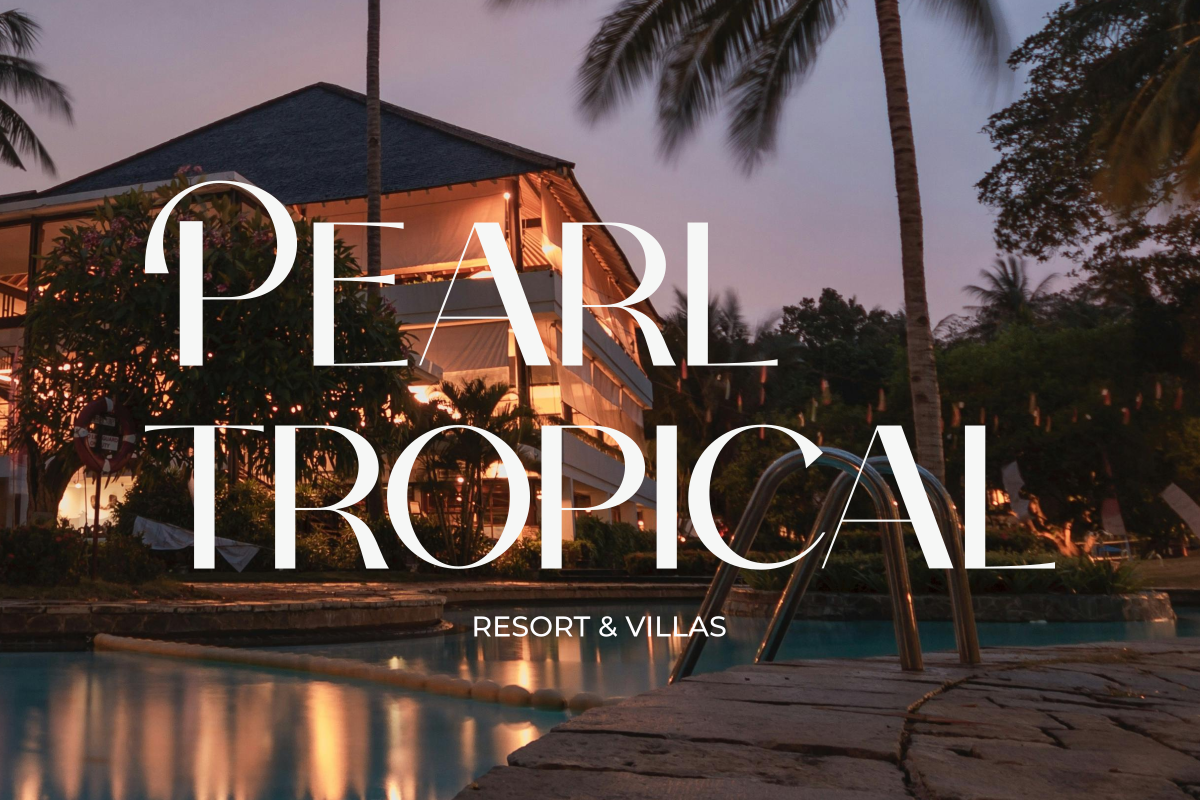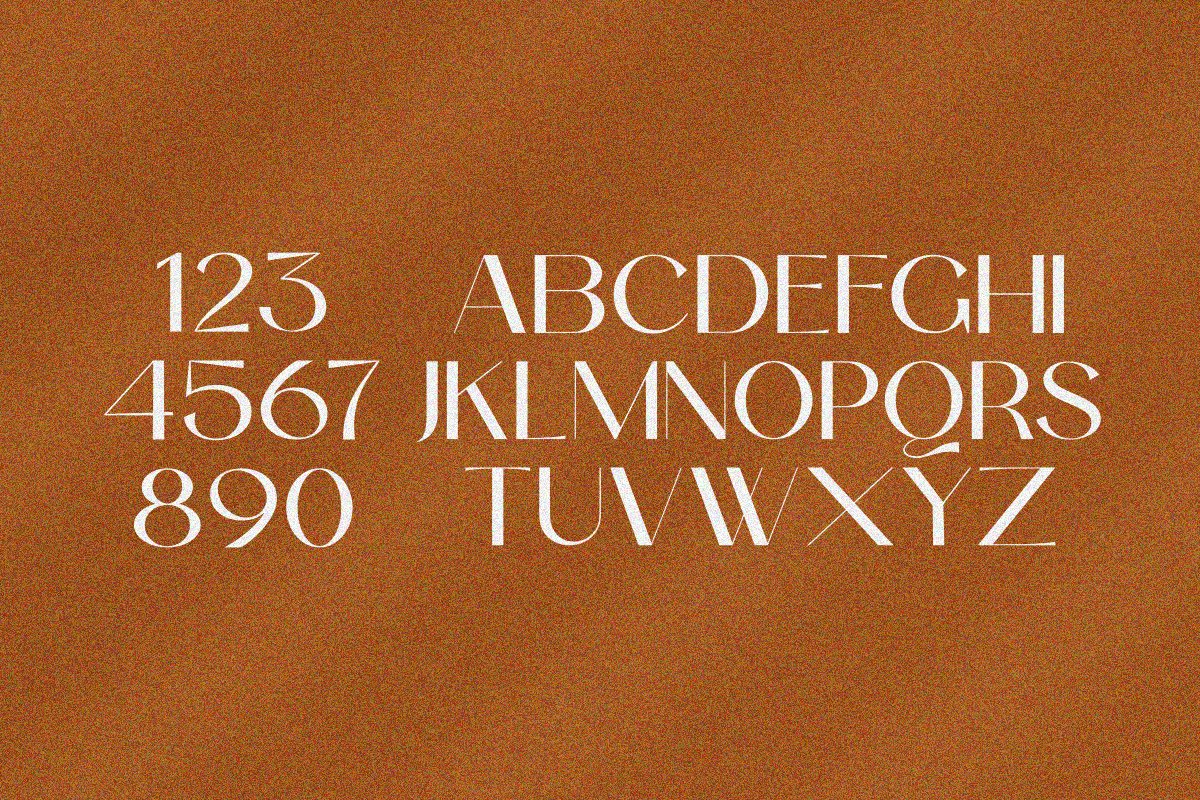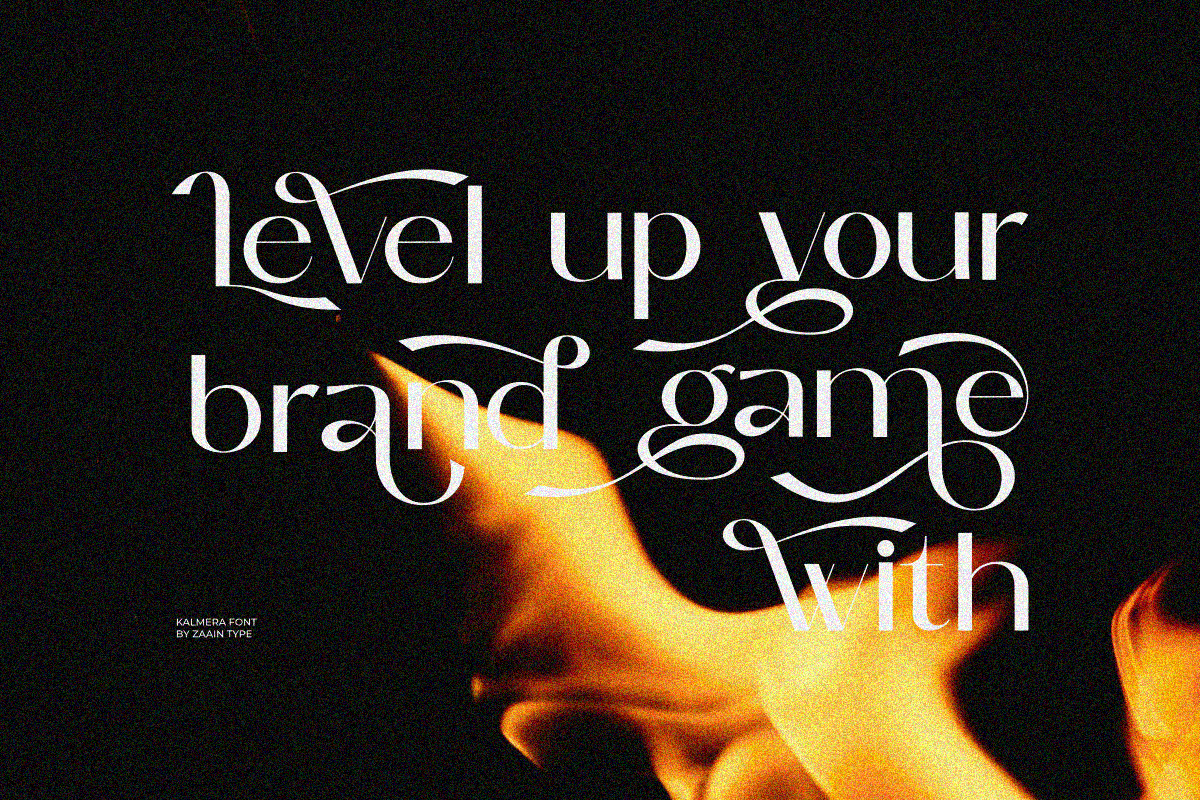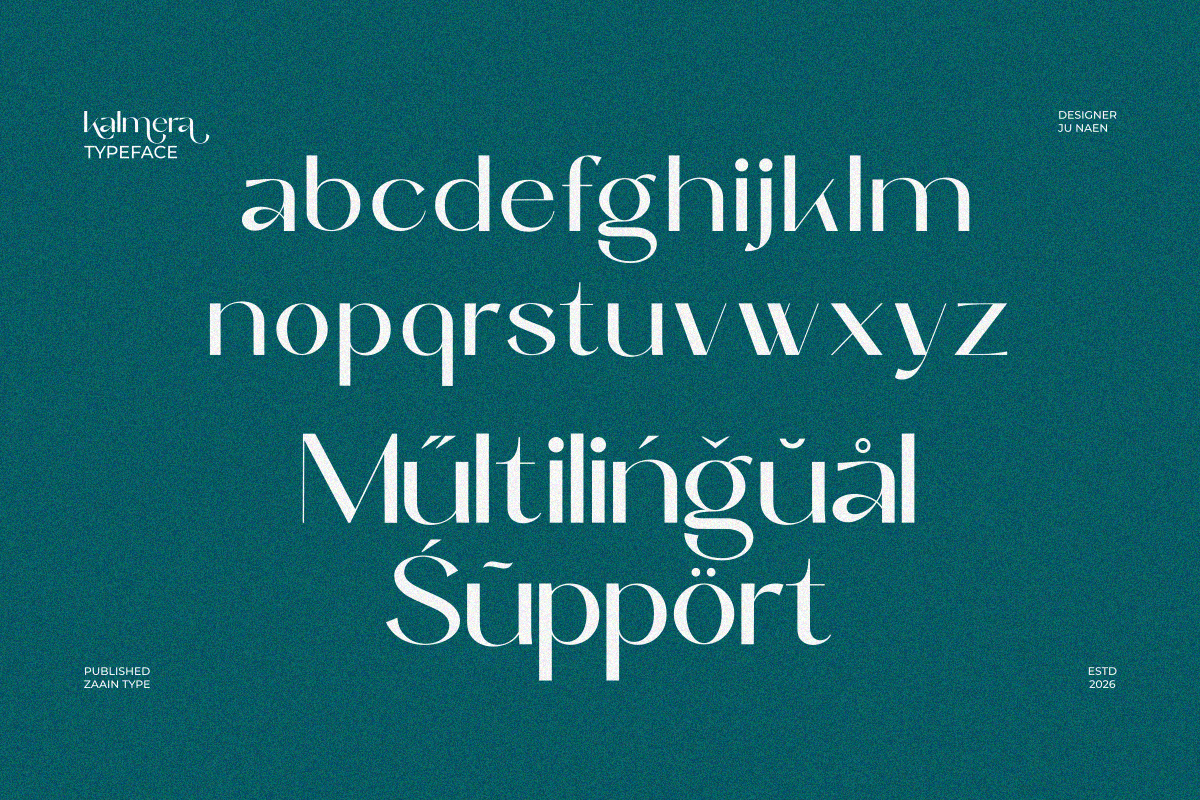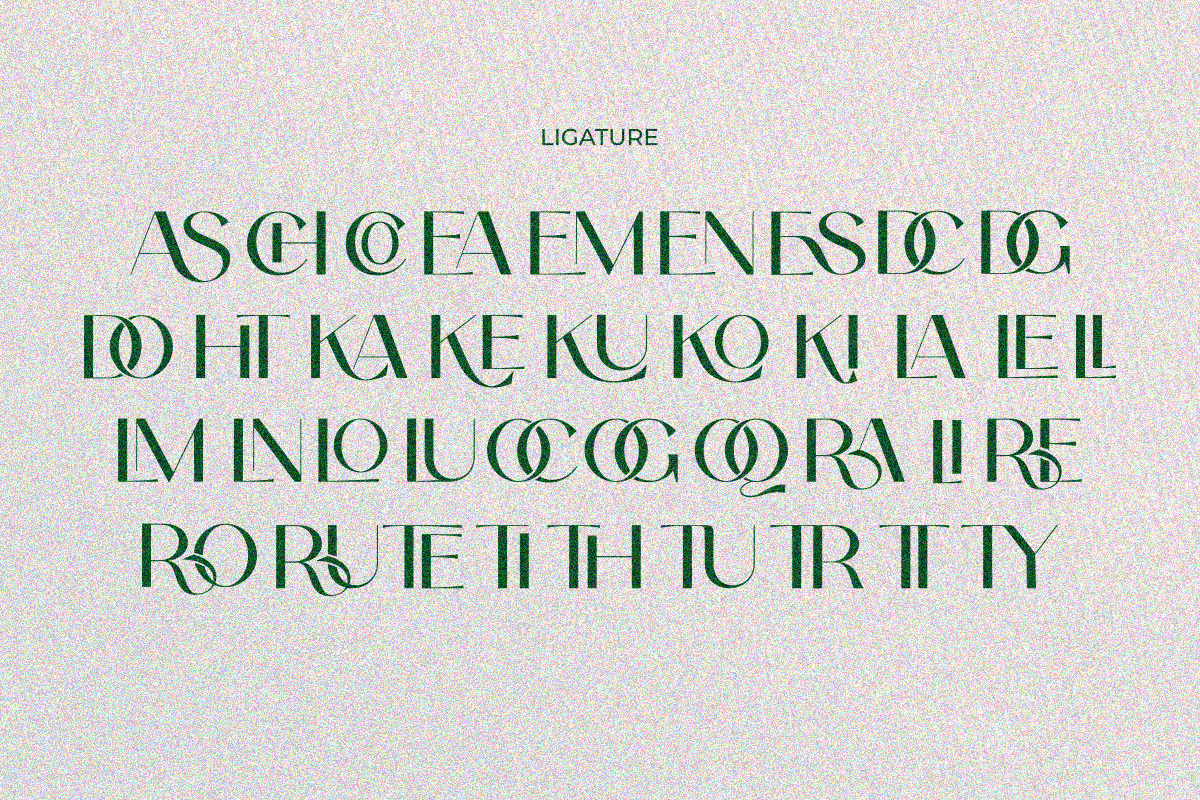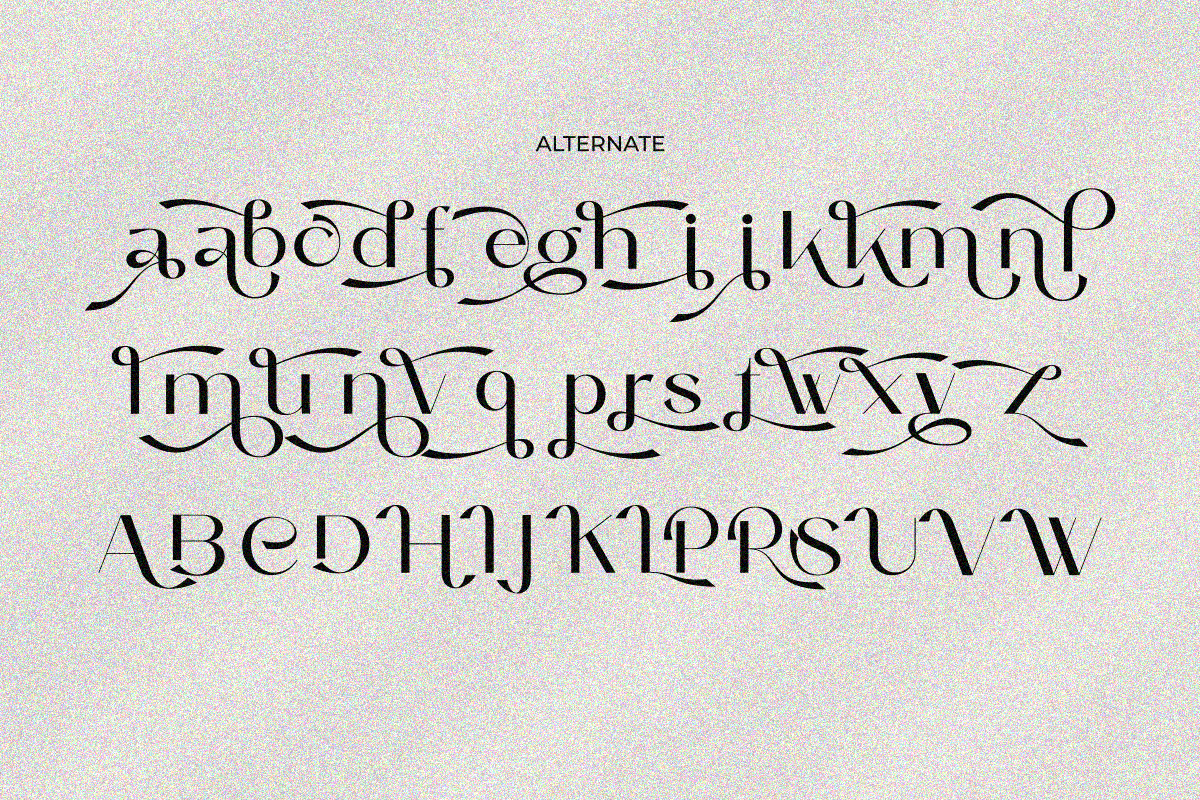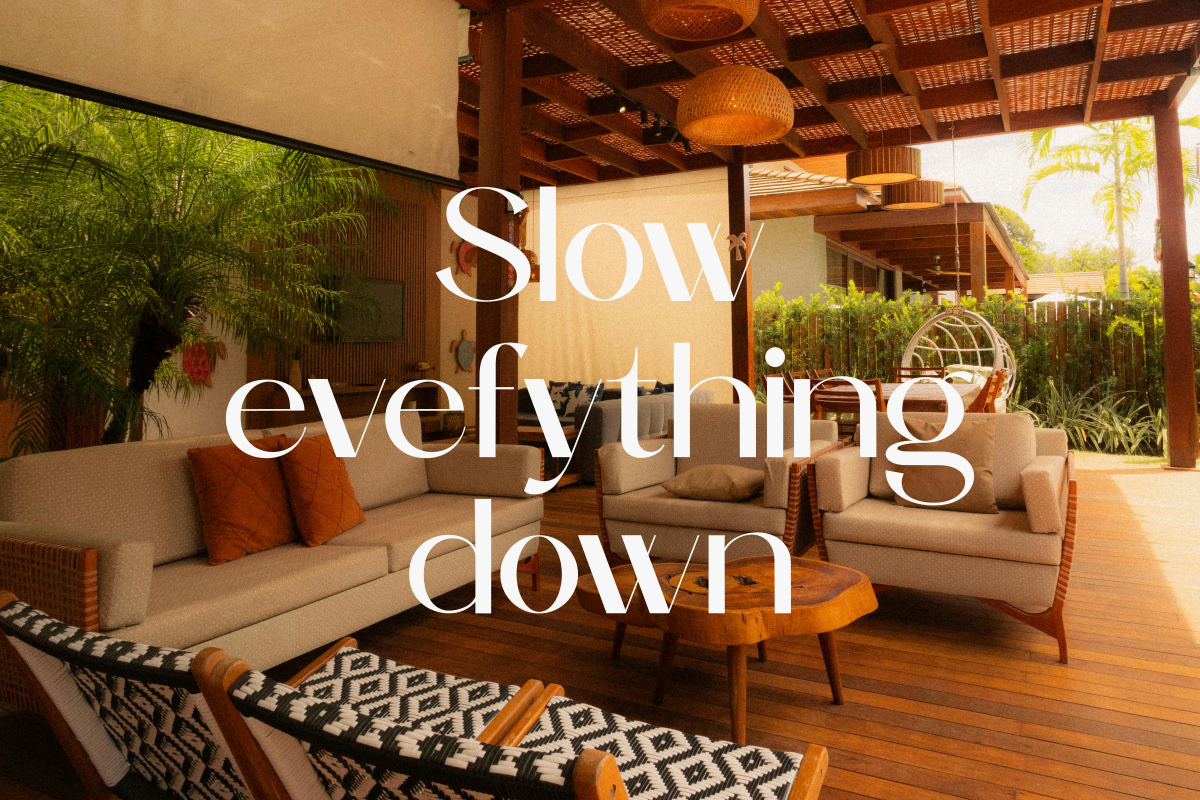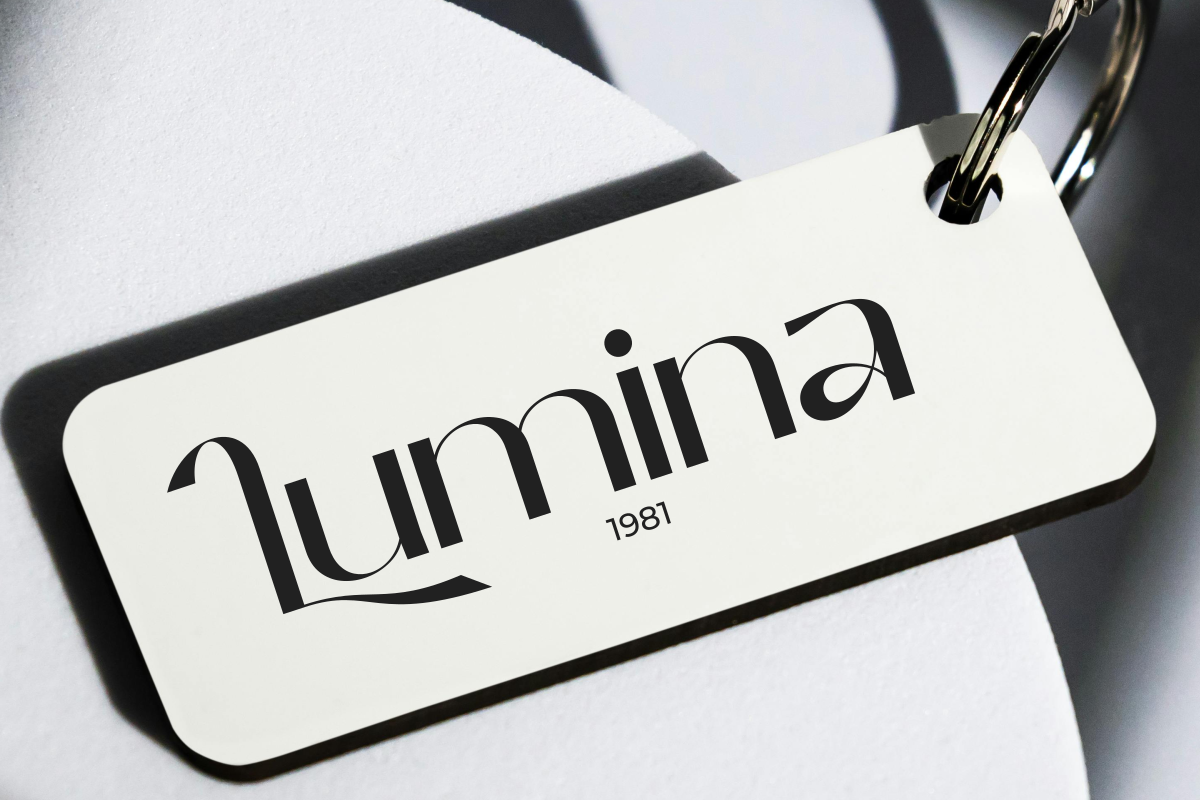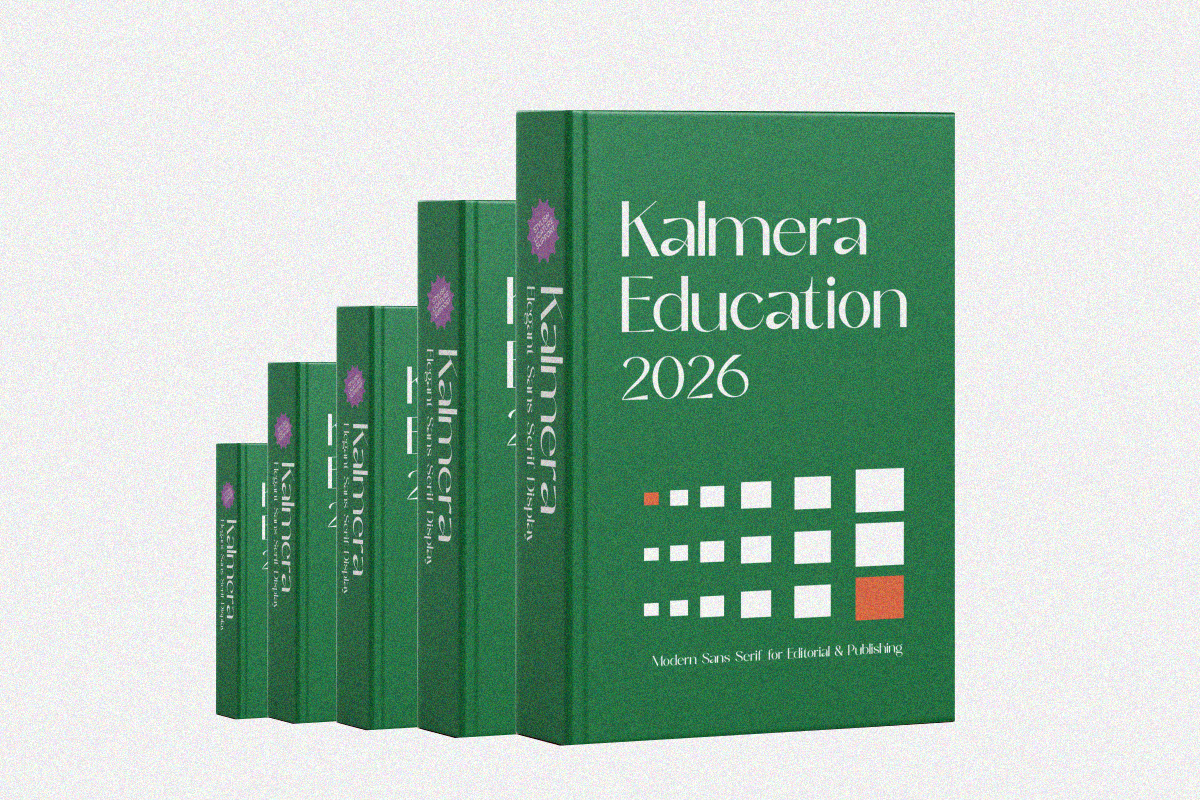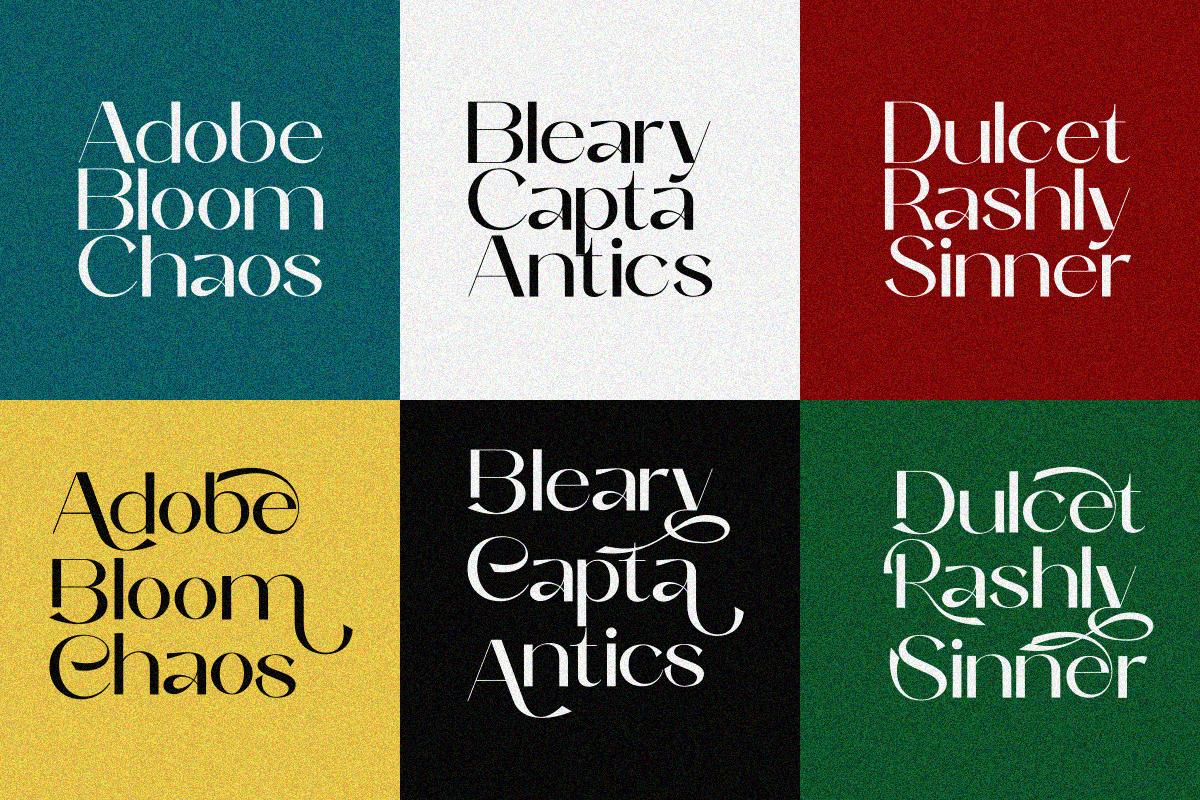
Kalmera
Kalmera is a modern sans serif typeface that blends simplicity with refined elegance. Designed with clean lines, balanced proportions, and excellent readability, Kalmera delivers a professional yet stylish presence. Its smooth curves and structured forms make it highly versatile, perfect for branding, editorial layouts, and digital interfaces.
With a minimalist aesthetic and a distinctive contemporary feel, Kalmera adds clarity and sophistication to any design. Whether used for headlines or body text, it maintains a polished and modern look across various sizes. Kalmera is an ideal choice for creatives seeking a sleek, timeless typeface that elevates visual communication.